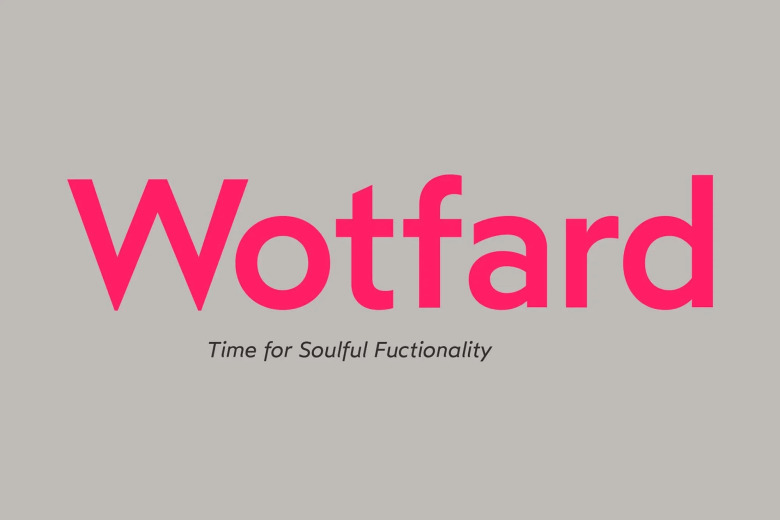
Wotfard Font
Wotfard is a new, refined sans serif font family with tremendous performance. Most of its design derives from Geometric and Humanistic typefaces. At the same time though, Wotfard also has characteristics of the contemporary variety all fused together in one clean and functional sans serif family.
Wotfard is modern, readable and versatile red bear family font. It is suitable for many graphics design projects, such as logo creation, signage programs, editorial layout design as well as packaging and advertising.
Wotfard Sans Serif Font